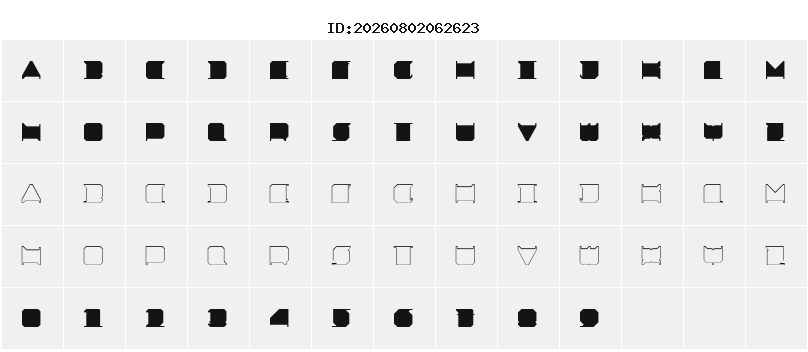
• Font Name: MINIMAL X
• Font Style: Ultra-expanded ExtraBlack
• Full Font Name: MINIM€L X Ultra-expanded ExtraBlack
• Designer: Gilberto Moya Perona
• Manufacturer: Gilberto Moya Perona
About MINIMAL X.ttf
MINIMAL X.ttf is a modern, elegant sans-serif font designed for ultimate readability and visual harmony. Perfect for branding, headlines, web design, and print materials.